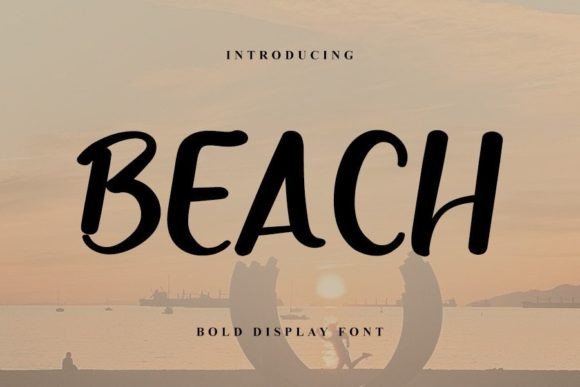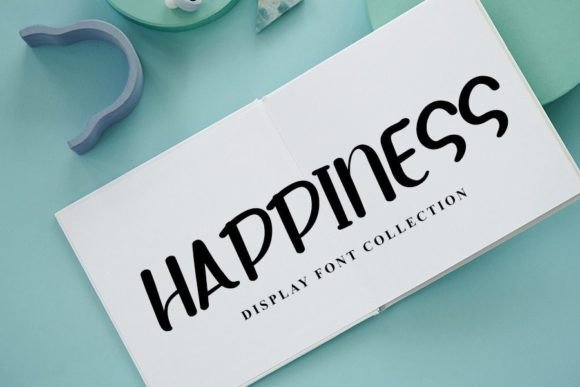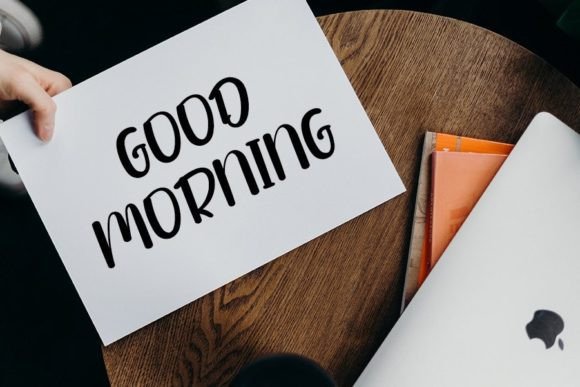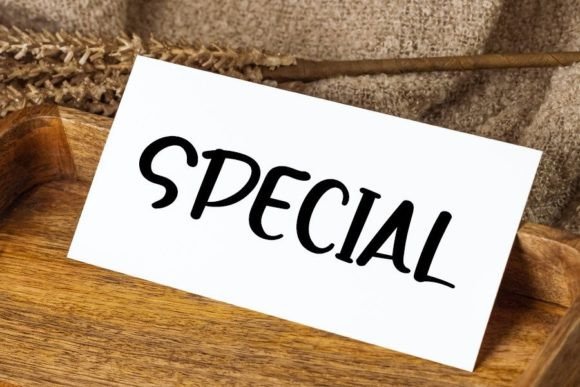
Beach Font
Meet Beach, a tidy and exquisite handwritten font that effortlessly combines an elegant touch with a dash of simplicity, making it an ideal choice for your favorite projects. Its refined aesthetics make it a perfect companion for a variety of creative endeavors. Prepare to be captivated by its distinct and timeless style, and let it serve as the key element in crafting spectacular designs!
At the heart of Beach lies a graceful elegance that is conveyed through every stroke and curve. The handwritten quality of the font adds a personal and human touch, making it particularly appealing for projects that seek to evoke warmth and authenticity. The neat and organized appearance ensures readability while retaining a sense of artistic charm.
Fall in love with Beach’s unique personality, a trait that sets it apart with an air of distinction. Its timeless style transcends trends, making it a versatile font that can stand the test of time. Whether used for invitations, greeting cards, branding, or any other creative pursuit, Beach brings a sense of sophistication to your projects.
The versatility of Beach shines through in its adaptability to different design contexts. It seamlessly integrates into a range of themes, from casual and friendly to formal and elegant. This flexibility makes it a valuable asset for designers looking to infuse a touch of charm into diverse visual communications.
Picture using Beach for beach-themed invitations, where the font’s handwritten allure adds a personal and inviting touch. In branding, it can lend a friendly and approachable vibe, establishing a connection with the audience. The font’s neat structure ensures clarity, making it suitable for a variety of applications.
Beach is not just a font; it’s an artistic tool that empowers you to craft visually stunning designs. Its distinct and timeless style invites creativity, making it a favorite for those who appreciate the beauty of handwritten elements. Whether you’re working on a project that requires elegance, simplicity, or a combination of both, let Beach be your go-to font for creating spectacular designs that leave a lasting impression.